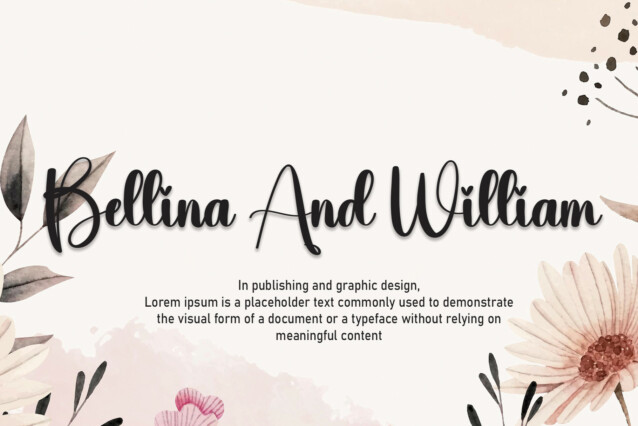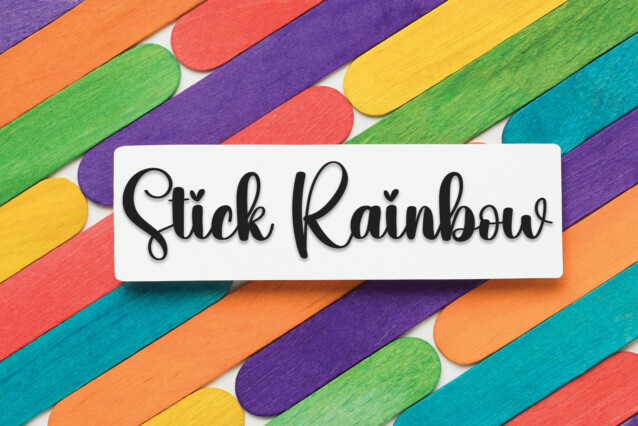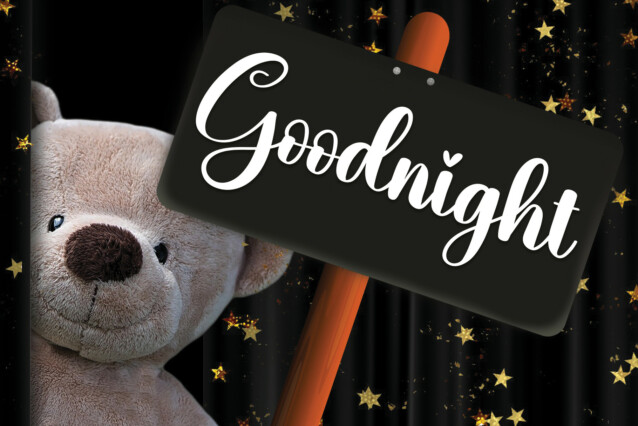
Read Script Font
Read Script Font is a modern handwritten font. Its latest style letters are perfect for wall displays, wedding invitations, social media post logos, advertisements, product packaging, product designs, labels, photography, watermarks, invitations, stationery, and any project that requires handwritten typography.